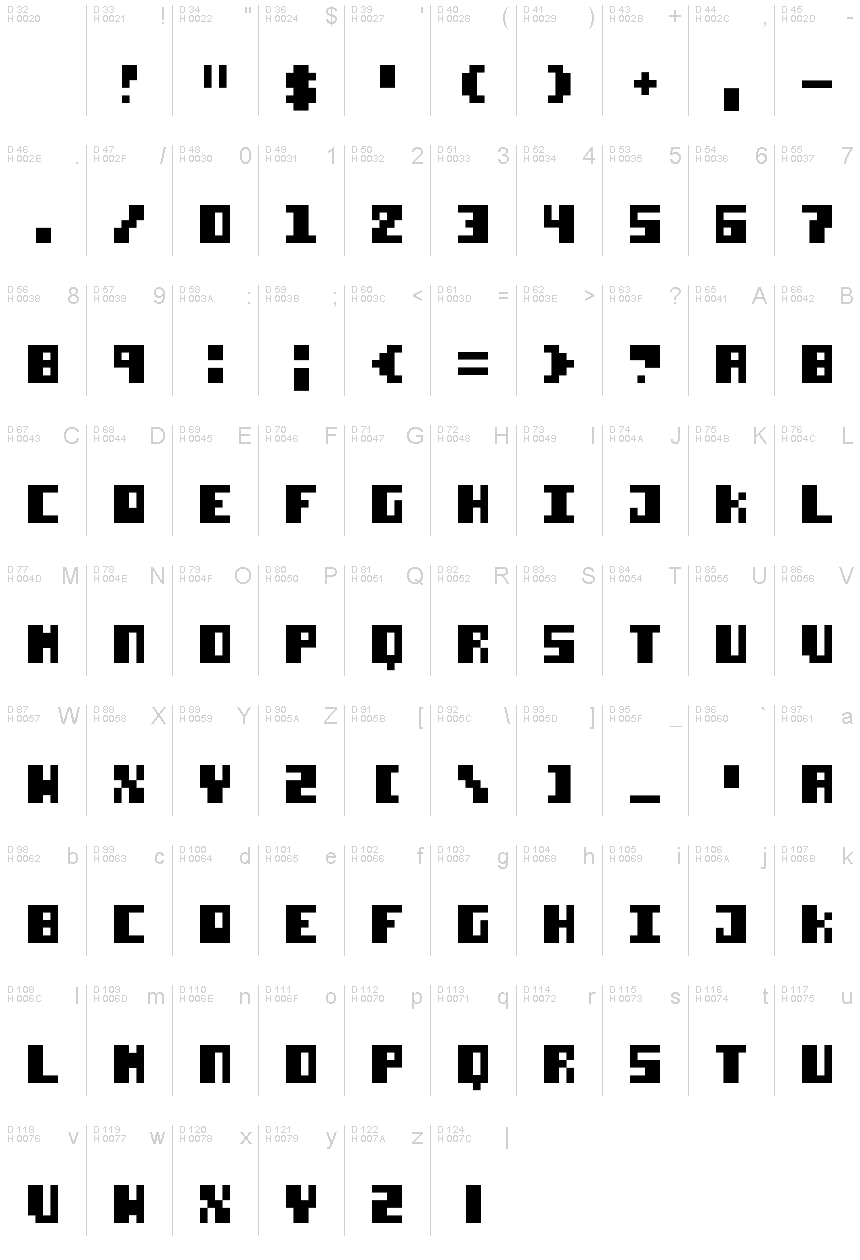
COTESPANOL
Looking for a unique and edgy font that will catch the eye? Look no further than COTESPANOL, designed by Slayer Ibn. This extra-bold typeface features pixelated characters that are perfect for adding a touch of retro flair to your design projects. With its semi-expanded width, COTESPANOL is ideal for use in headlines and titles, creating an attention-grabbing look that will make your message stand out. Use it in posters, logos, or even video game designs to create a bold and captivating visual experience. Whether you're looking to add some vintage charm or just want to give your project a bit of edge, COTESPANOL is the font for you!
The original font is from DELTARUNE created by TobyFox. I make this concept of this font with Spanish symbols. If you use it, give credits to TobyFox (the original font) and me (by the concept.)